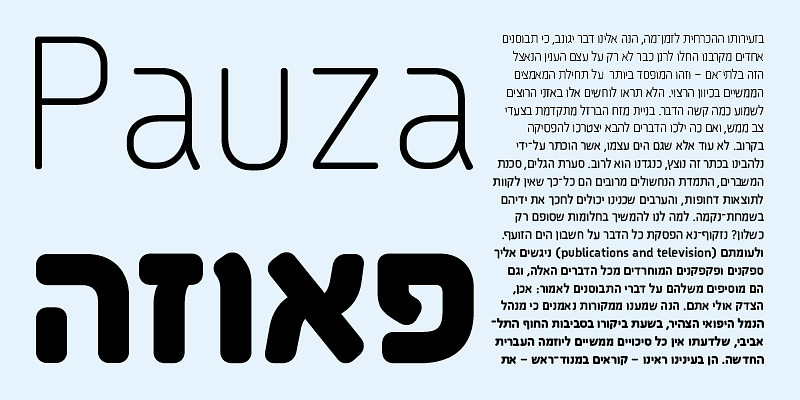
Pauza Font Free Download is a modern, sleek sans-serif typeface designed with clean, geometric shapes and balanced proportions. Ideal for contemporary branding, websites, packaging, and editorial design, Pauza offers both elegance and versatility. Its minimalist design makes it highly adaptable for various applications, from large headlines to body text.
The Pauza Font features smooth, consistent lines and simple yet effective letterforms, which give it a professional, polished look suitable for a wide range of creative projects. Whether you're working on logos, marketing materials, or digital design, Pauza provides the flexibility you need without compromising legibility or style.